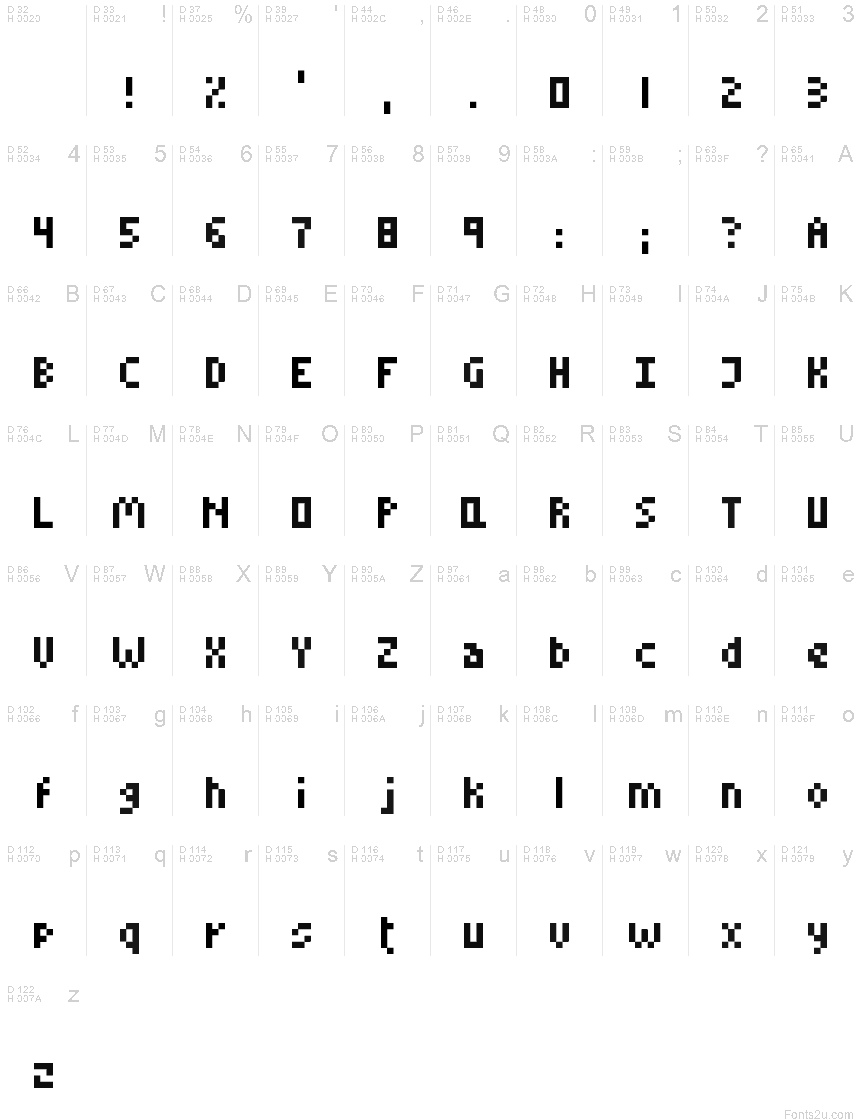
Little Conquest Regular
This font is inspired by the type in Sid Meier's Colonization from 1994. Some characters are the same but most are redesigned for a better fit.